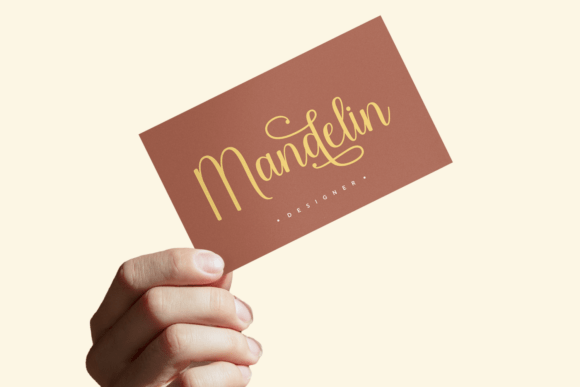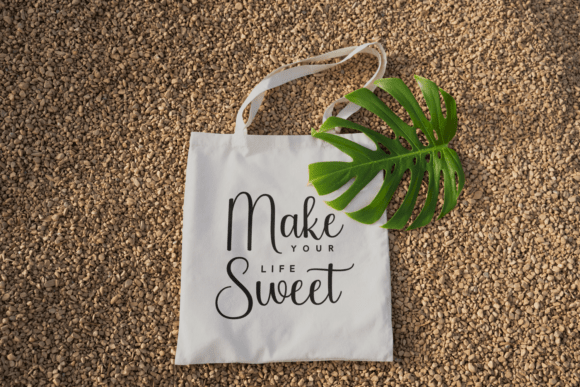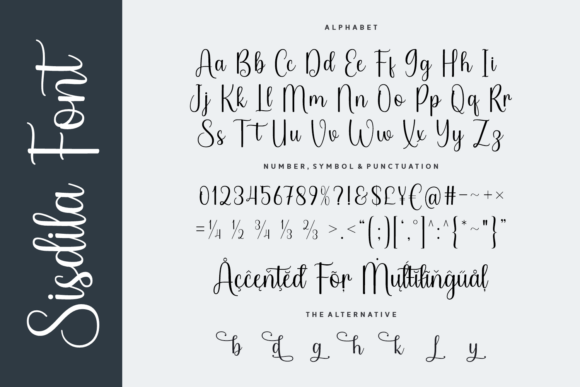
Introduction to Sisdila Font
Sisdila is a graceful handwritten script font with flowing curves and stylish swashes that exude charm and sophistication.
Its smooth strokes and well-balanced letterforms make it perfect for branding projects, romantic stationery, feminine packaging, and stylish social media graphics Sisdila adds a personal and elegant touch to any design.